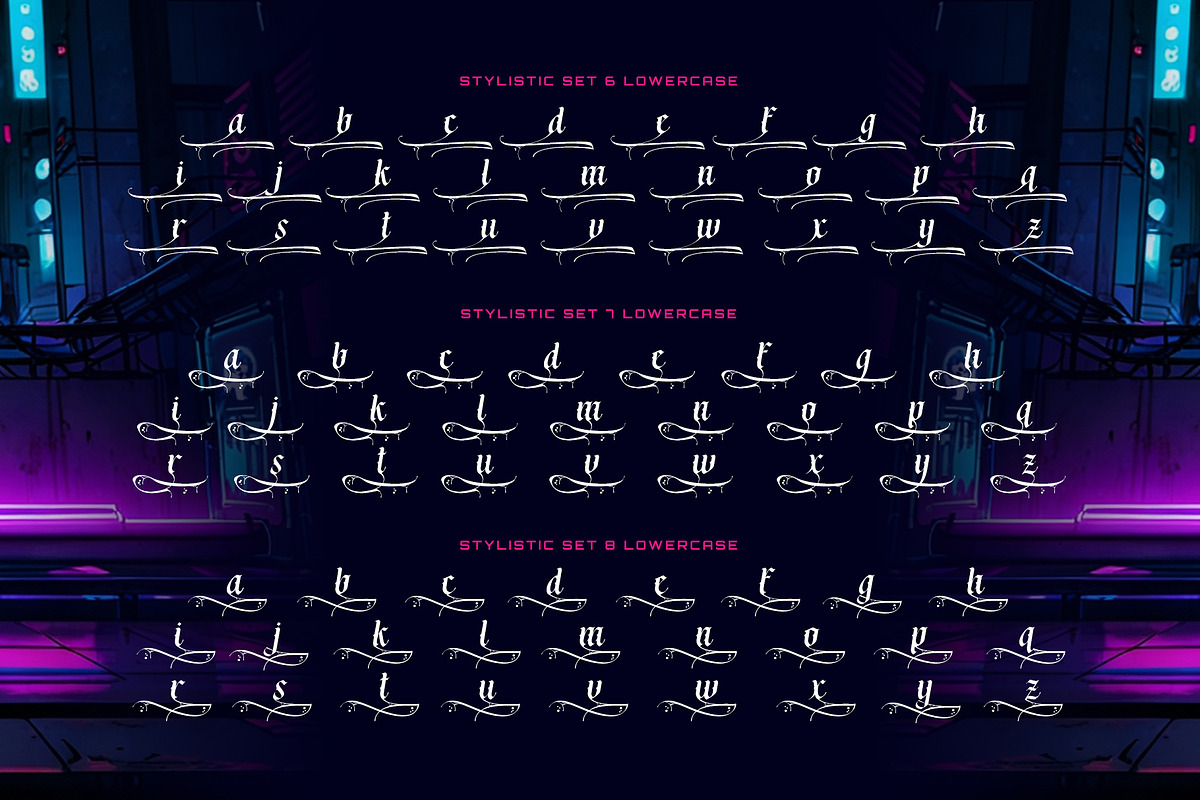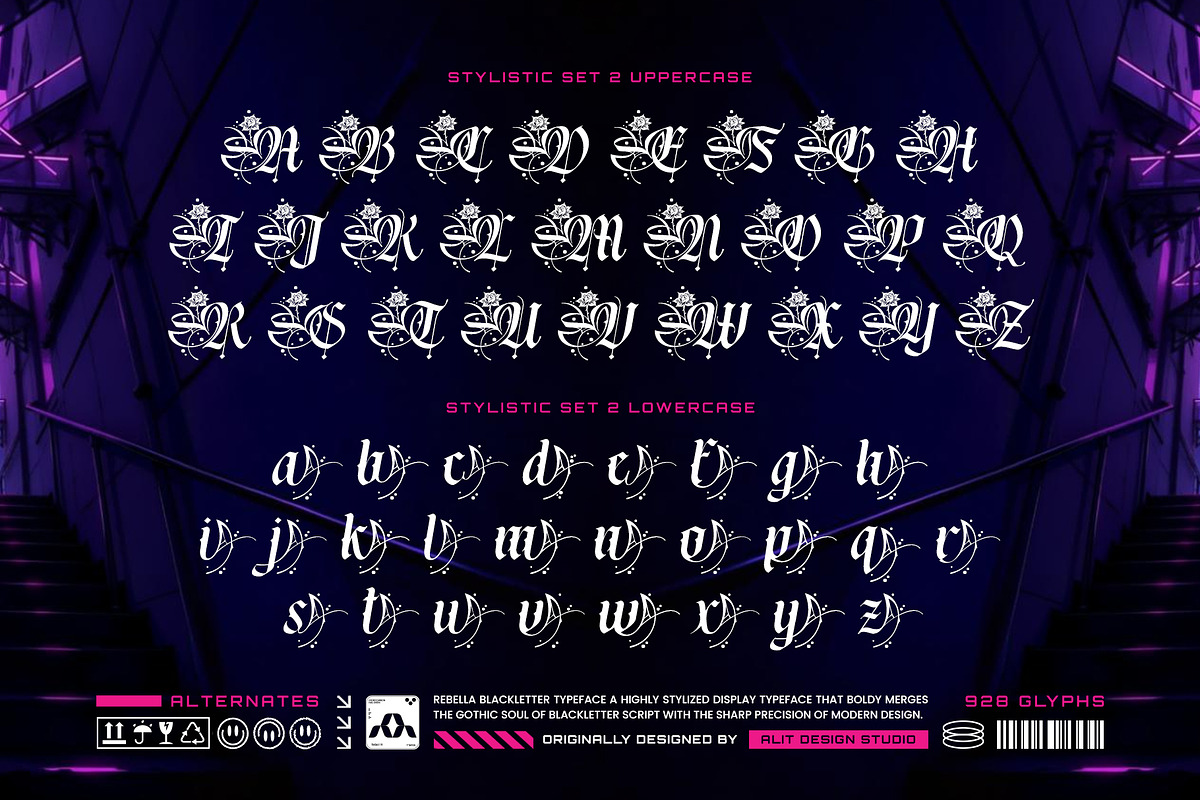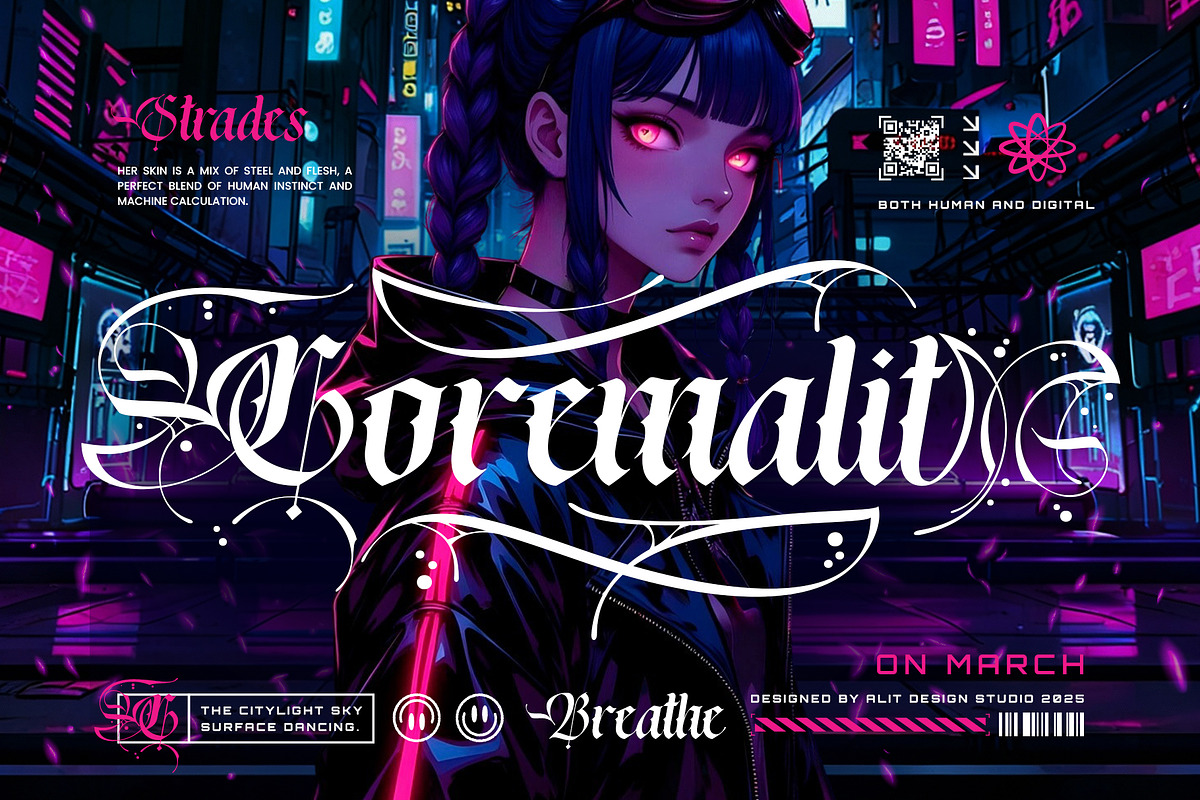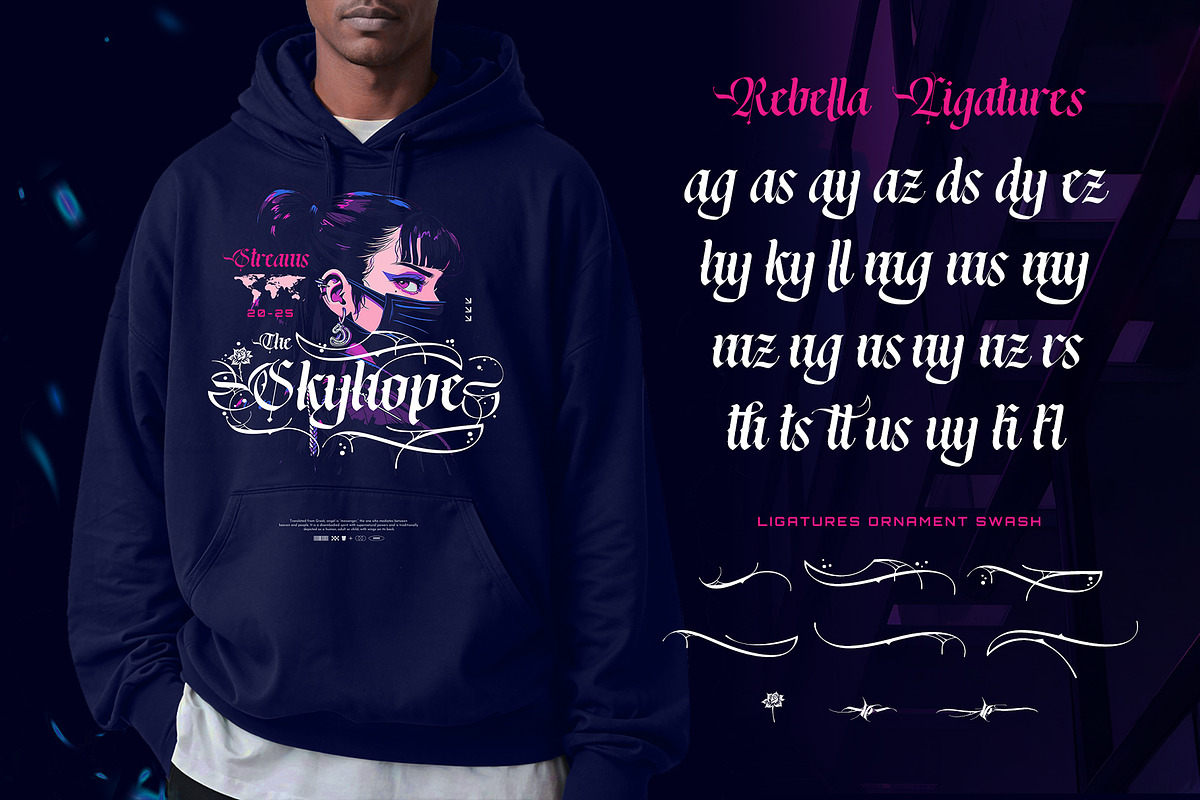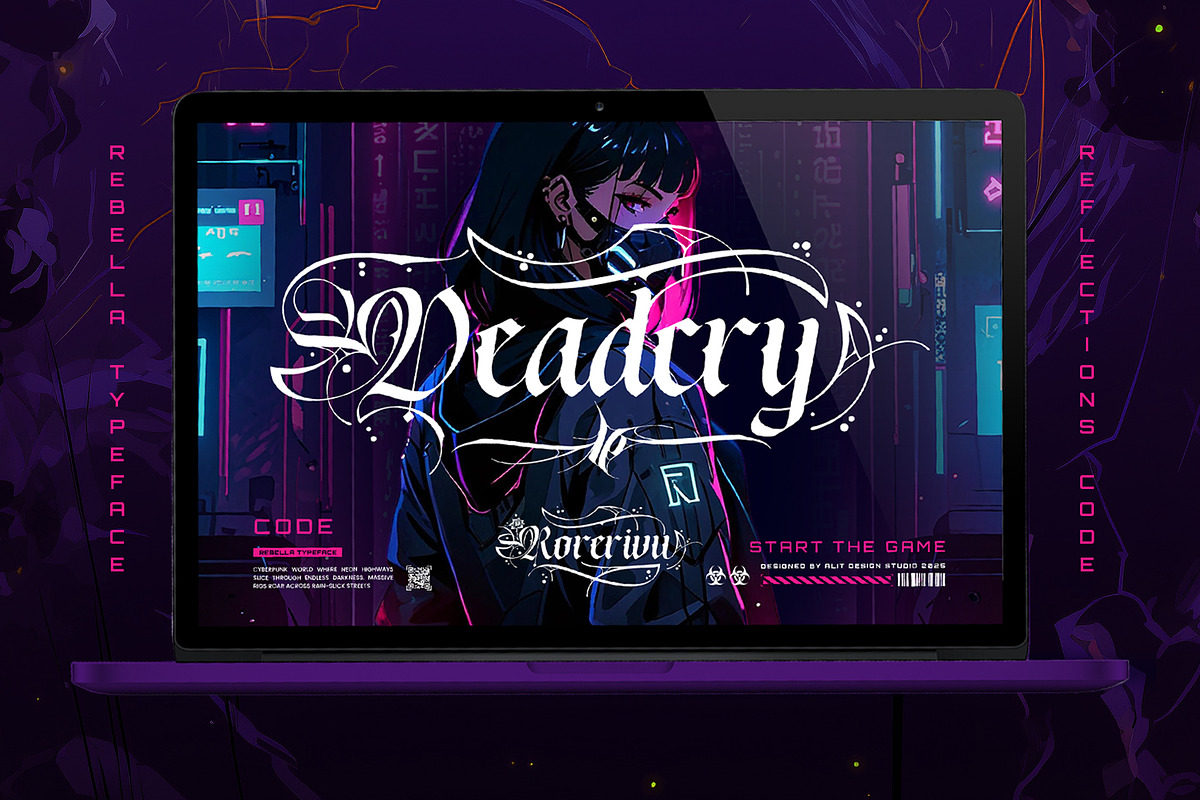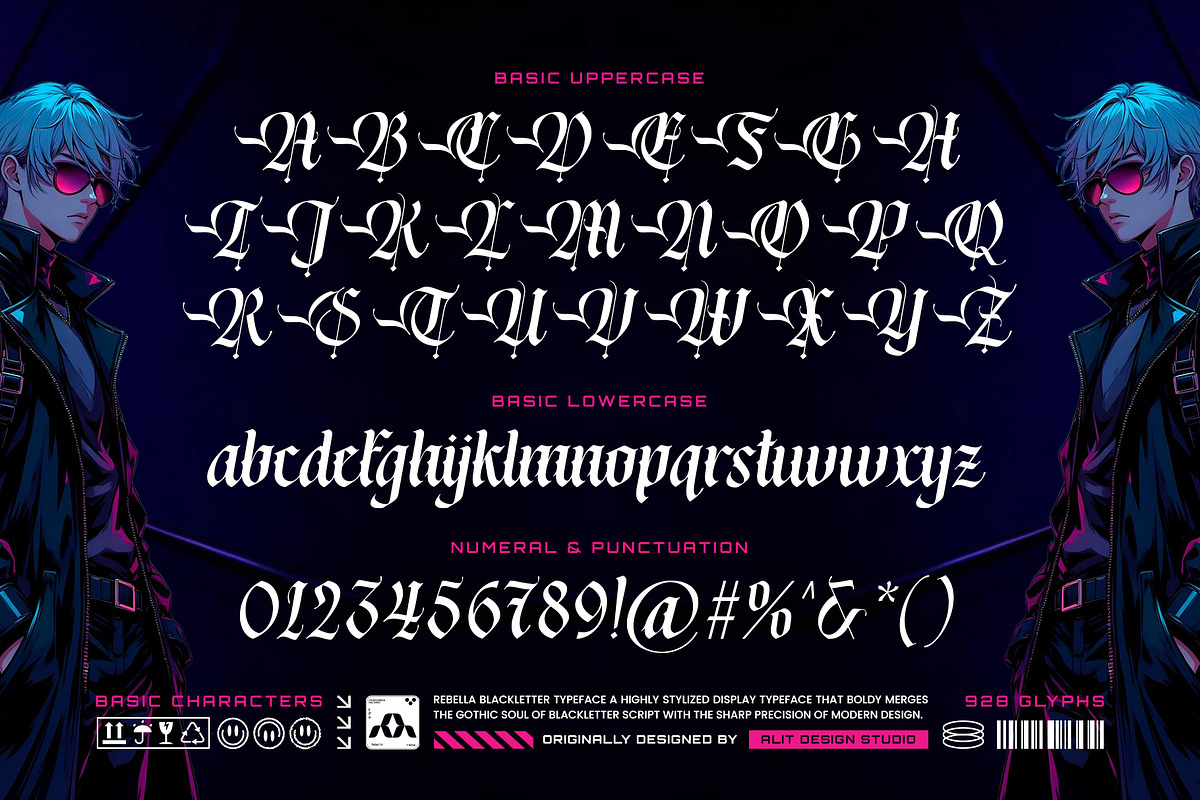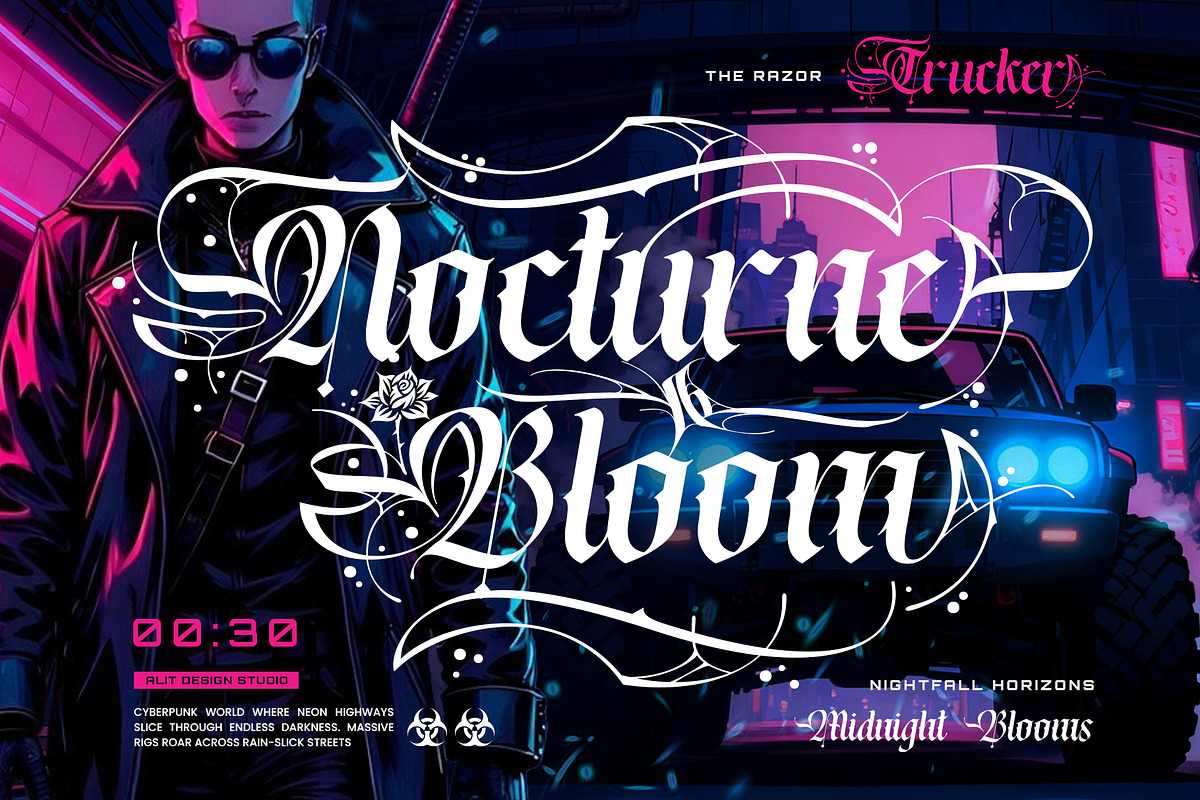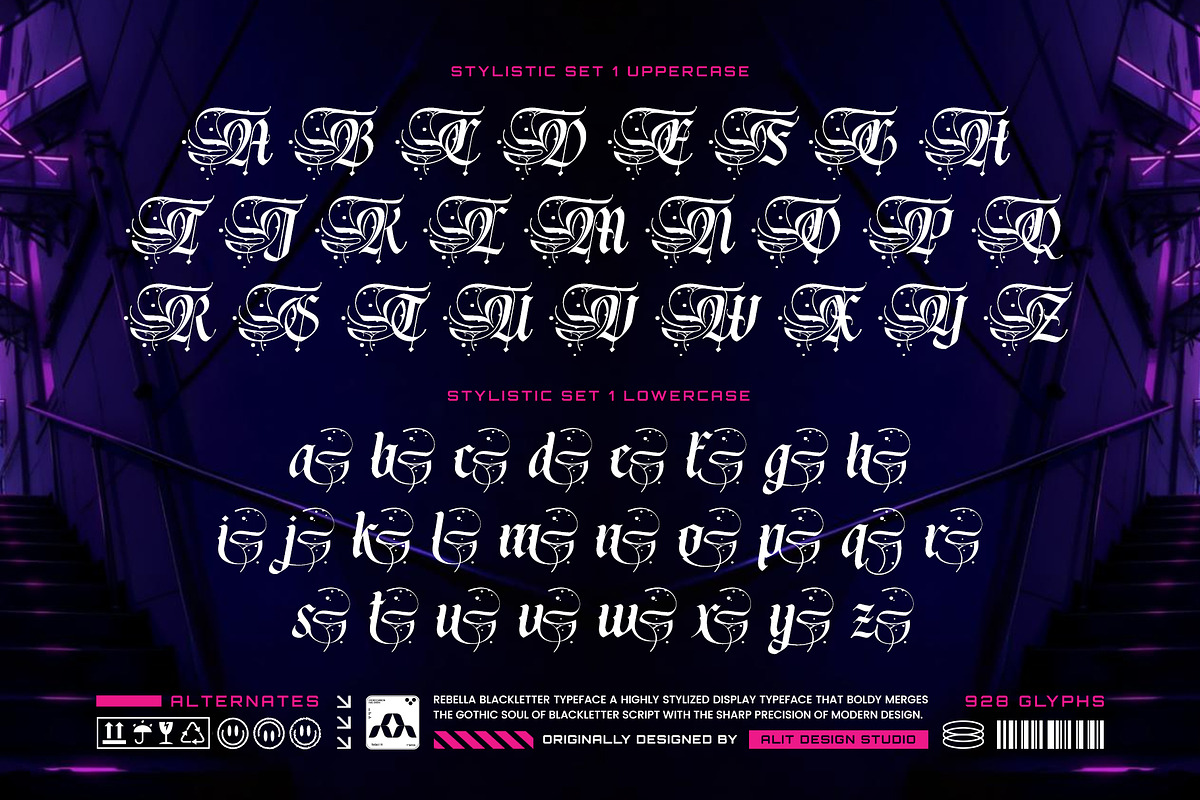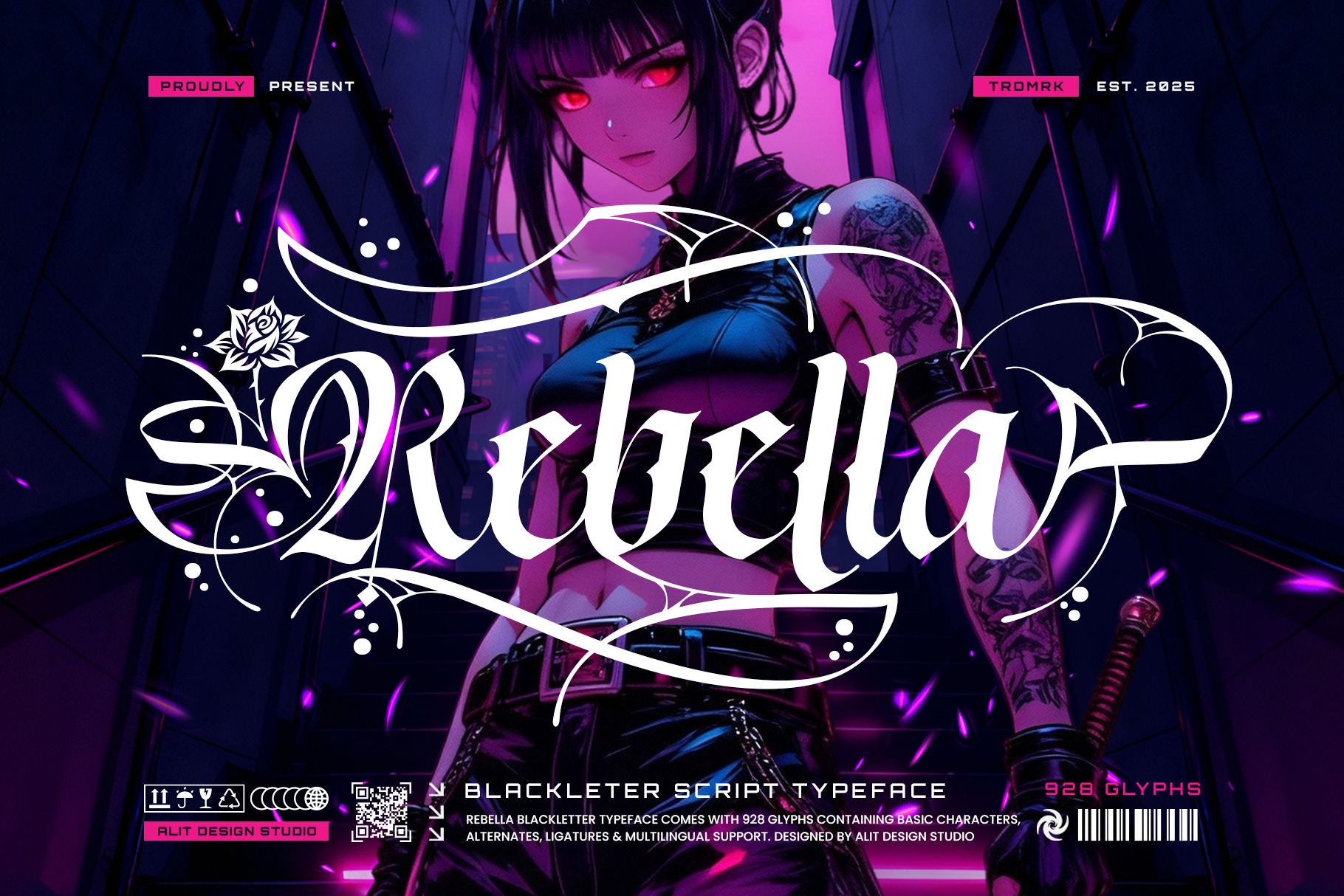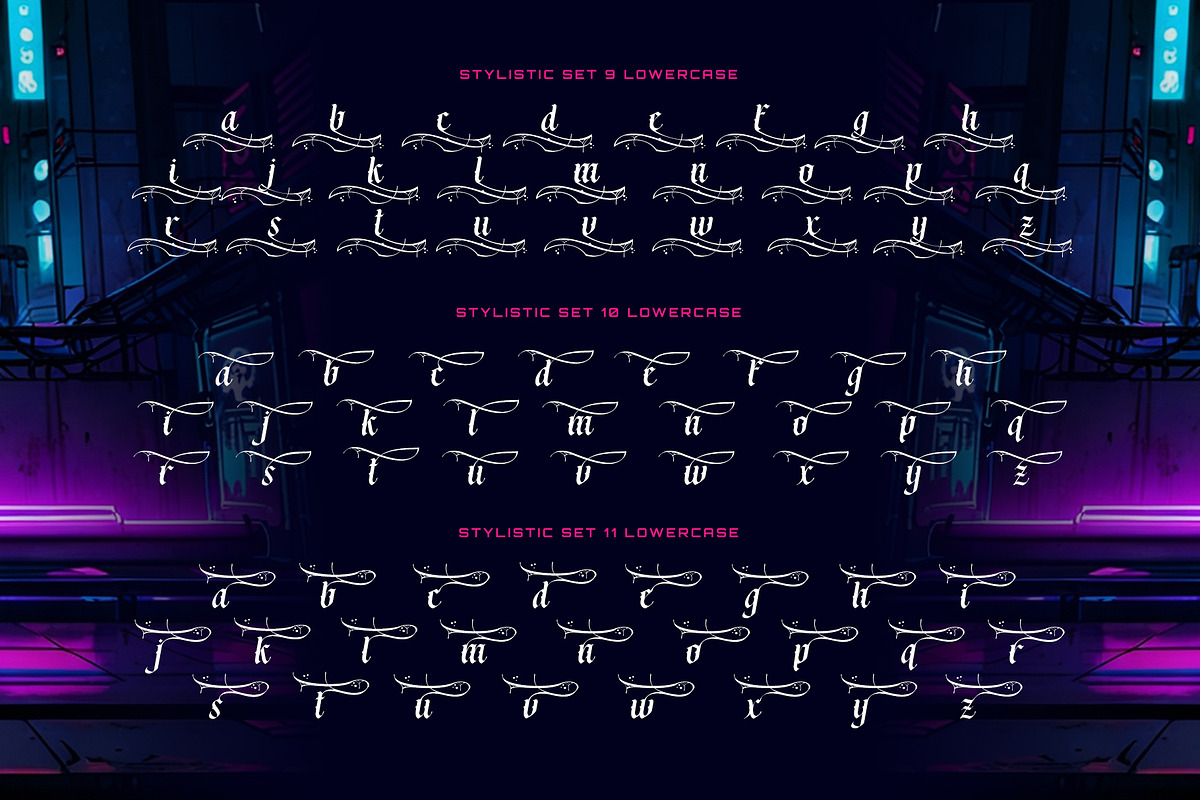
Rebella Typeface
Unleash the Rebel Within.
Step into a world where gothic tradition collides with a neon-lit future. Introducing Rebella, a stunning blackletter script designed by Alit Design Studio. Rebella captures the soul of the streets, blending the timeless elegance of calligraphy with an edgy, cyberpunk aesthetic.
What sets Rebella apart are its unique, dynamic flourishes. Each letter is crafted with precision, but the real power lies in its massive library of alternates. Dive into over 928 glyphs and discover a world of creative possibilities:
- Liquid & Dripping Swashes: Give your text a fluid, "inked" look with alternates that drip and flow like wet paint or digital rain.
- Intricate Rose Motifs: Weave symbols of beauty and rebellion directly into your words. Select alternates adorned with beautifully illustrated roses, perfect for adding a touch of "splatter rose" gothic romance.
- Endless Stylistic Sets: Rebella comes packed with numerous stylistic sets, allowing you to customize your text from a clean, sharp blackletter to a fully embellished masterpiece with elaborate tails, thorns, and flourishes.
- Full Creative Control: With full support for ligatures, multilingual characters, and a vast array of alternates, you have complete control to craft a truly unique and custom logo or title.
Rebella is built for impact. It's the ideal typeface for:
- Branding & Logos: Create unforgettable logos for music, fashion, tech-wear, or gaming brands.
- Poster & Album Art: Design cinematic posters and album covers that demand attention.
- Apparel Design: Print bold, statement-making graphics on t-shirts, hoodies, and accessories.
- Gaming & Media: Give your game titles, stream overlays, or futuristic movie titles a sharp, distinctive edge.
Rebella isn't just a font; it's a symbol of rebellion. It's the ink in the shadows, the rose growing through the concrete.